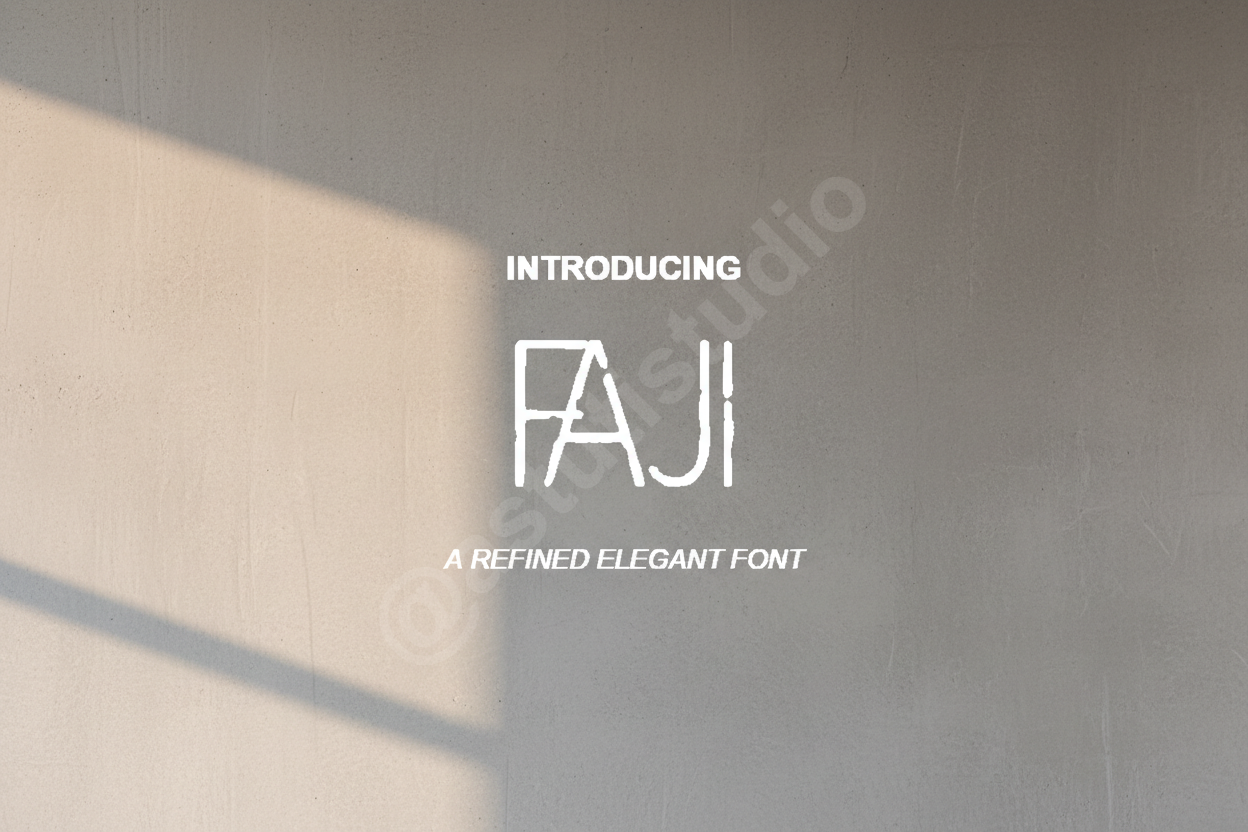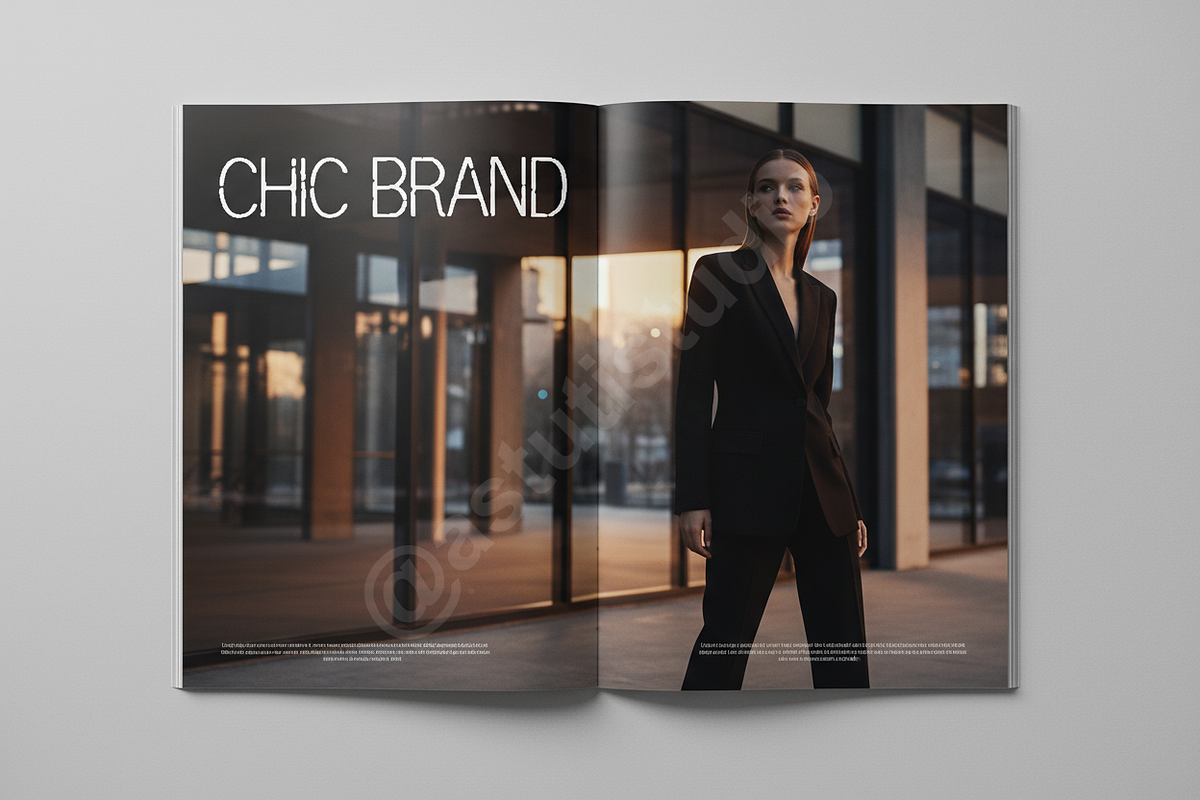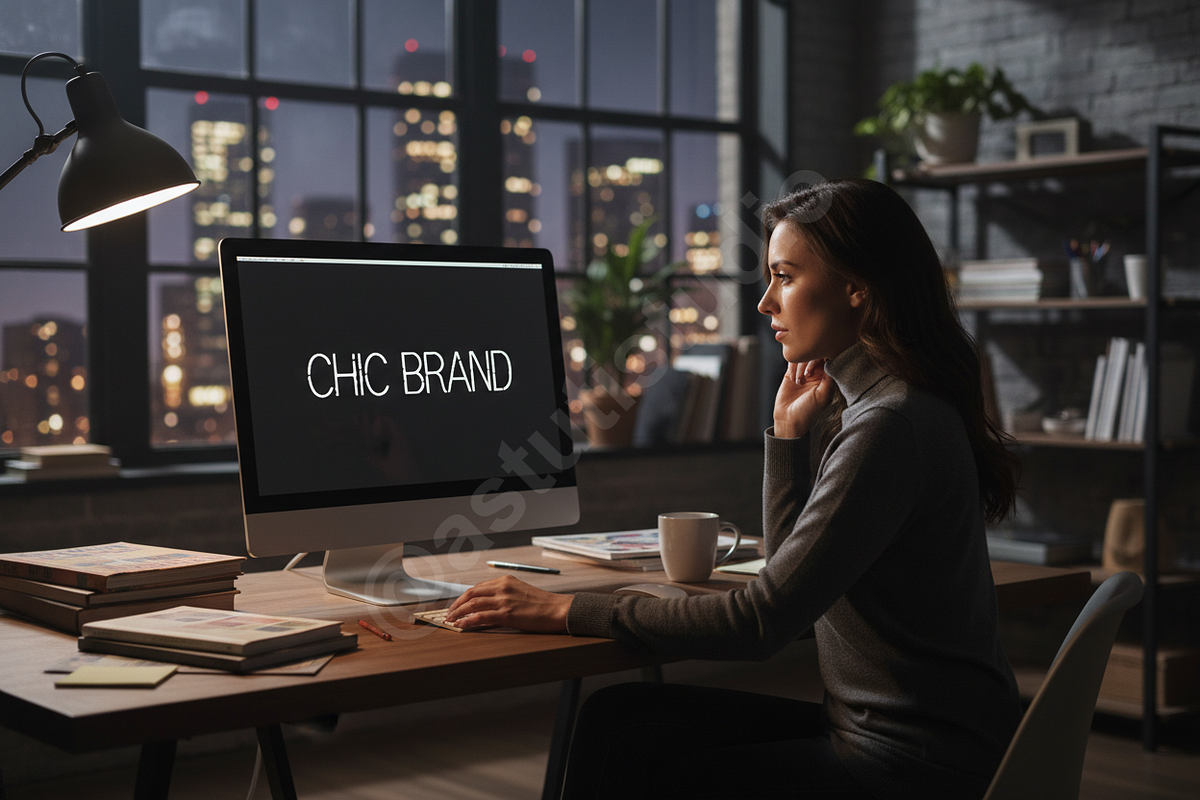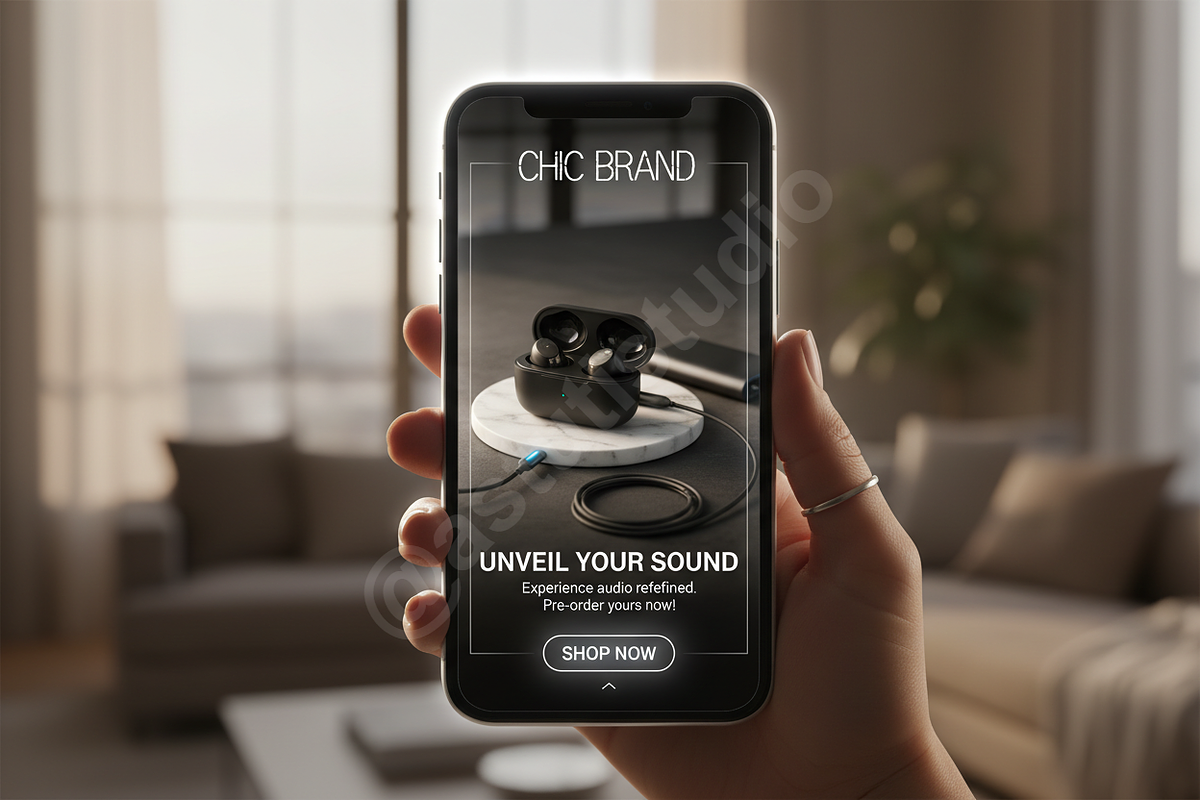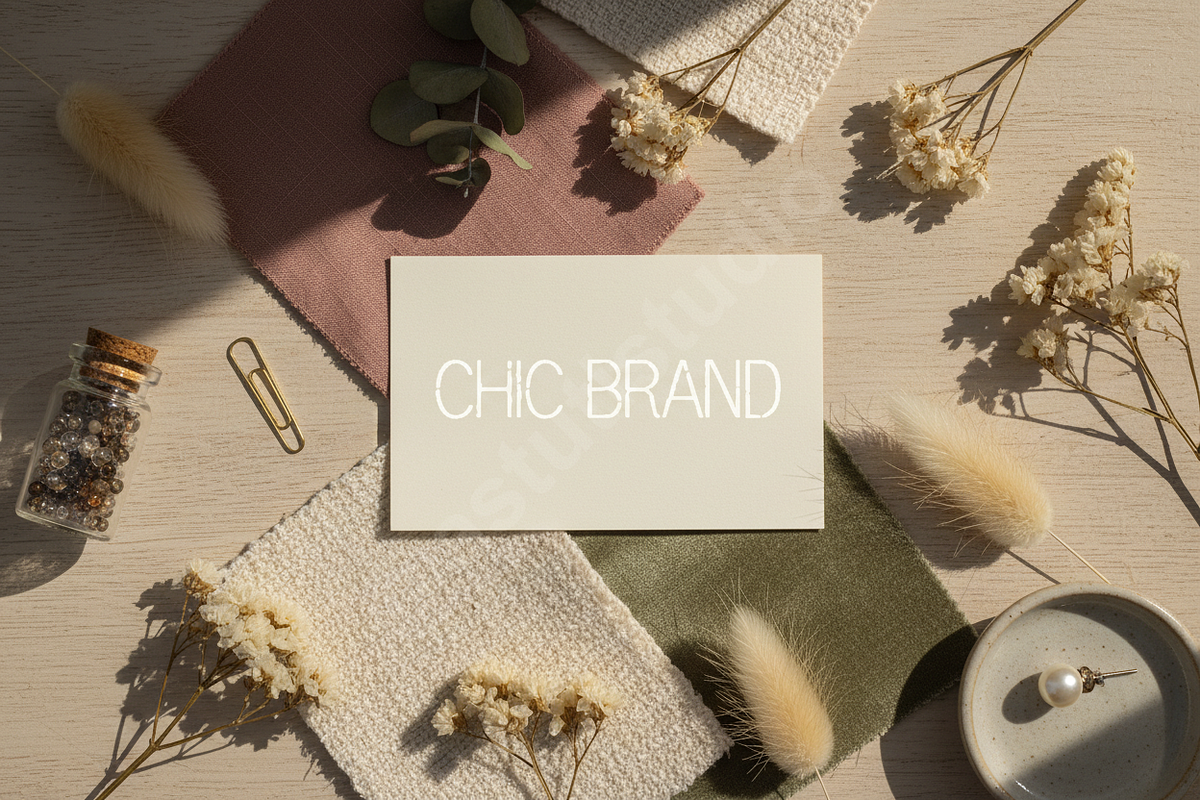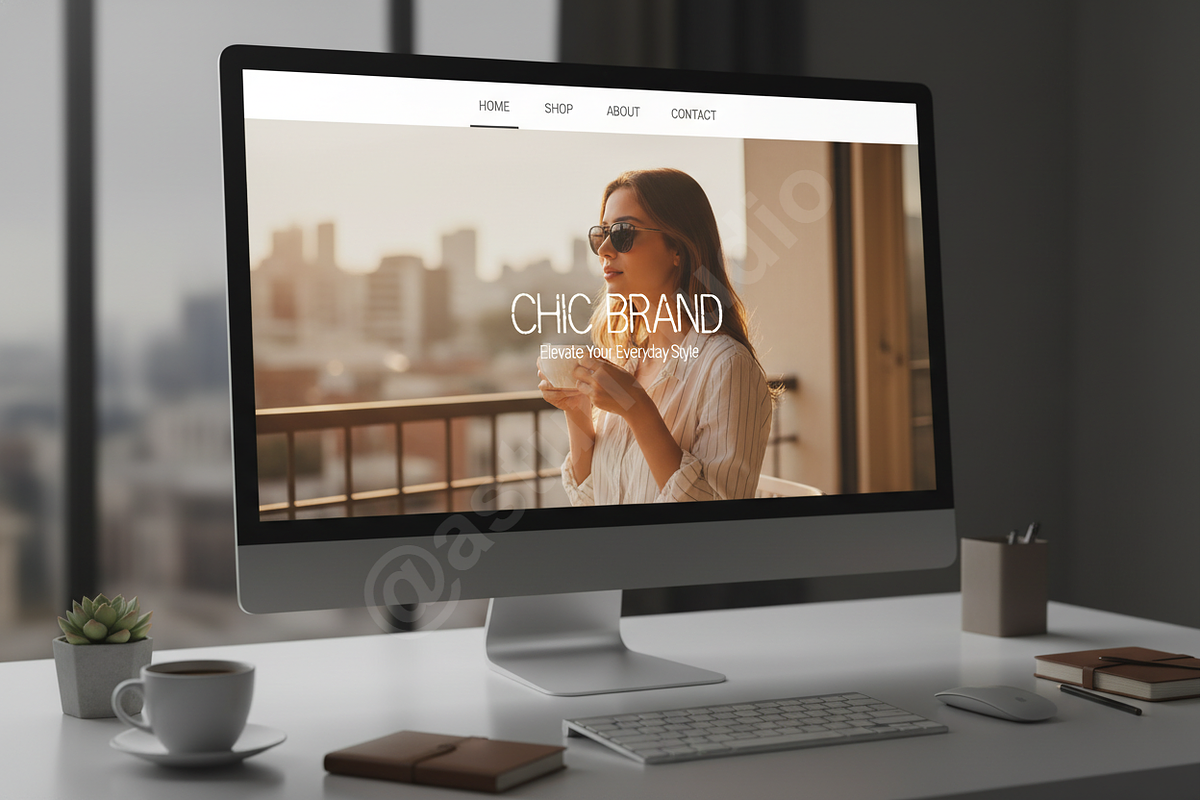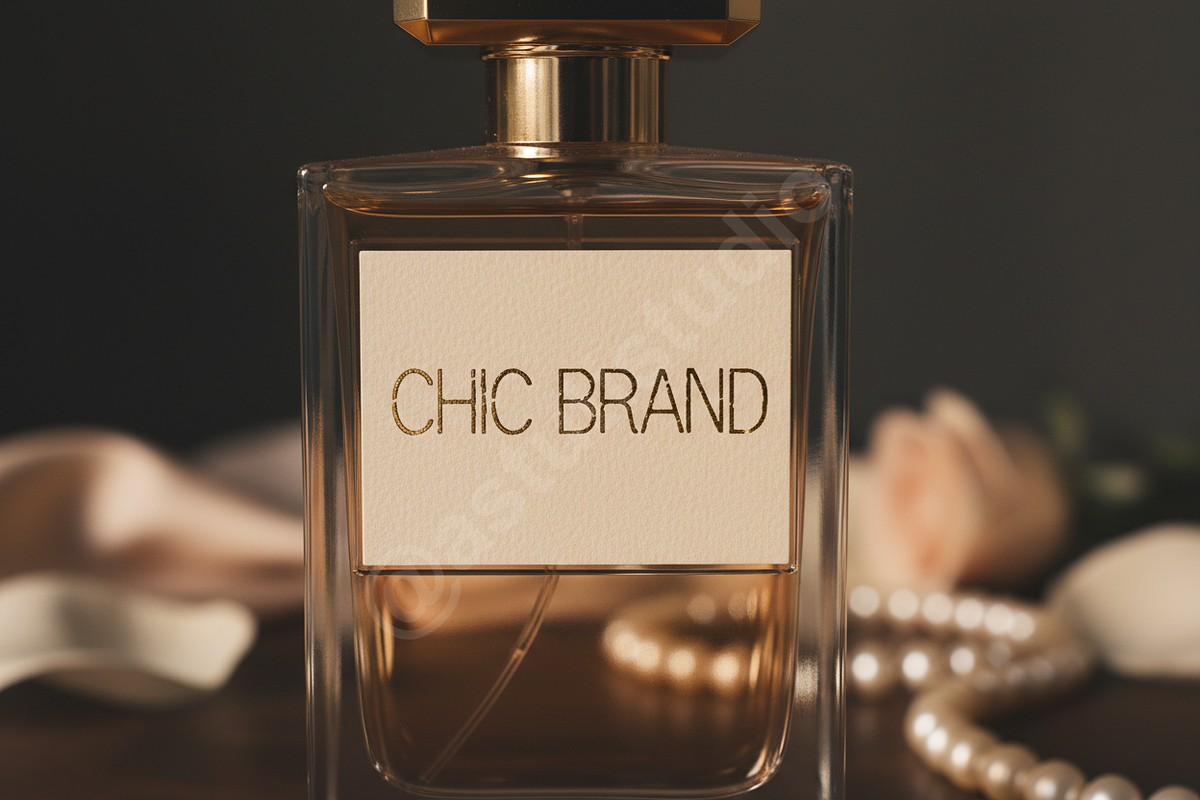
Faji | Modern Luxury Serif Typeface
Introducing Faji, a sophisticated and refined modern serif typeface designed for the discerning creative. Faji embodies timeless elegance with a contemporary edge, making it the definitive choice for projects demanding luxury and high impact. Its balanced proportions and subtle curves elevate any design, from exclusive packaging to high-fashion editorial spreads. Perfect for achieving a polished, premium aesthetic in all your work.
### Key Features
- Optimized for Luxury: Perfect geometry for high-end branding, packaging, and sophisticated visual identity systems.
- Editorial Versatility: Excellent readability for magazine layouts, headline usage, and large-scale digital presentation.
- Full Multilingual Support: Extensive glyph set supporting over 100 Latin-based languages.
- OpenType Functionality: Includes standard ligatures and stylistic alternatives for enhanced creative control.
- Social Media Ready: Crisp rendering optimized for digital platforms like Instagram, Pinterest, and website hero sections.